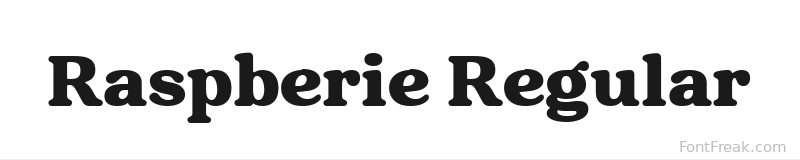
Raspberie Regular
About Raspberie Regular
Raspberie Regular is a distinctive display font designed by Mukhlis Muhammad, classified as a variatype. This font showcases a unique flair that blends contemporary design with a touch of playful elegance. Its visual characteristics include a balanced stroke weight, moderate contrast, and well-considered spacing that ensures legibility while retaining a charming aesthetic. The letters are adorned with subtle decorative elements that add personality without overwhelming the text, making it suitable for various creative projects.
This font is perfect for a range of specific use cases. Wedding invitations benefit from its stylish yet readable nature, creating an inviting atmosphere for guests. Movie posters can utilize Raspberie Regular to convey a sense of modernity and excitement, drawing in viewers with its eye-catching appeal. For restaurant menus, this font brings a warm and approachable vibe, enhancing the dining experience. Additionally, it serves well for branding materials, where small business owners can use it to establish a unique identity that resonates with their target audience. Content creators will also find Raspberie Regular useful for social media graphics, ensuring their posts stand out in a crowded digital landscape.
What sets Raspberie Regular apart is its ability to seamlessly blend functionality with style. Its unique design qualities cater to both professional and creative needs, ensuring that any project using this font will exude character and charm.